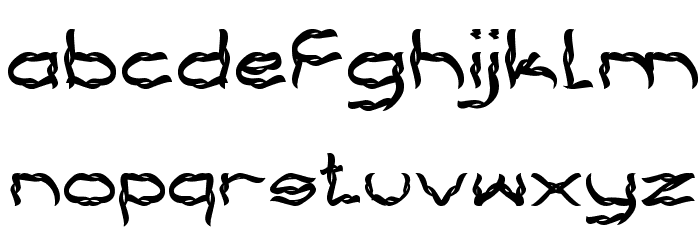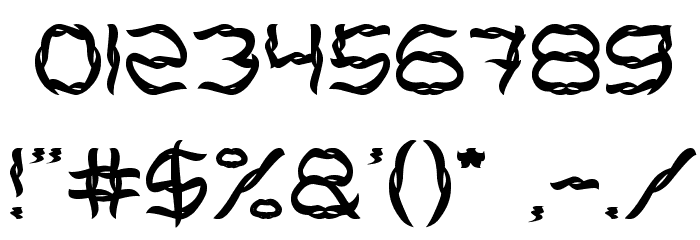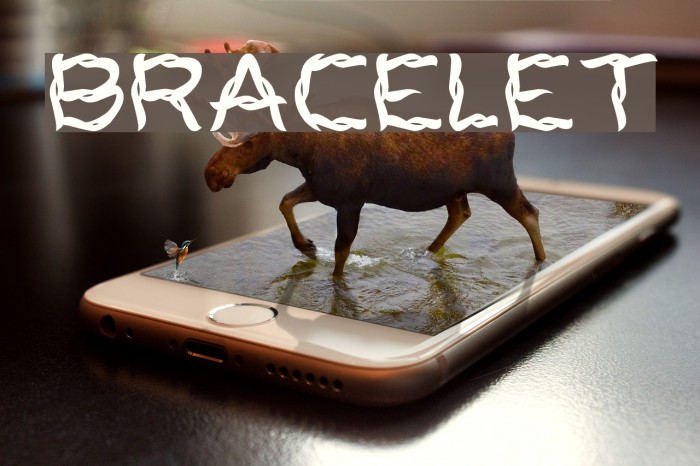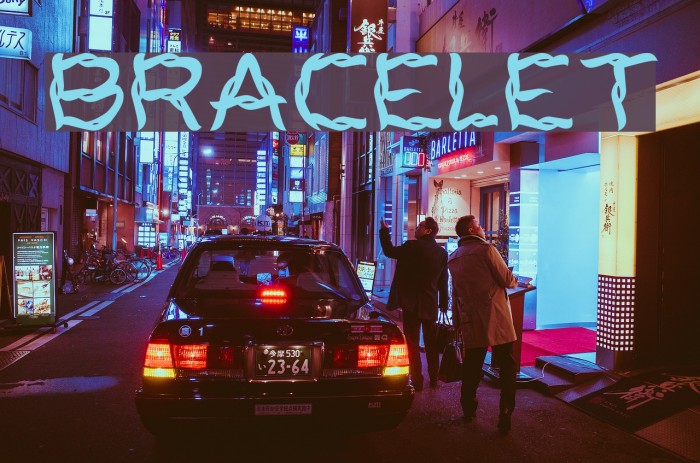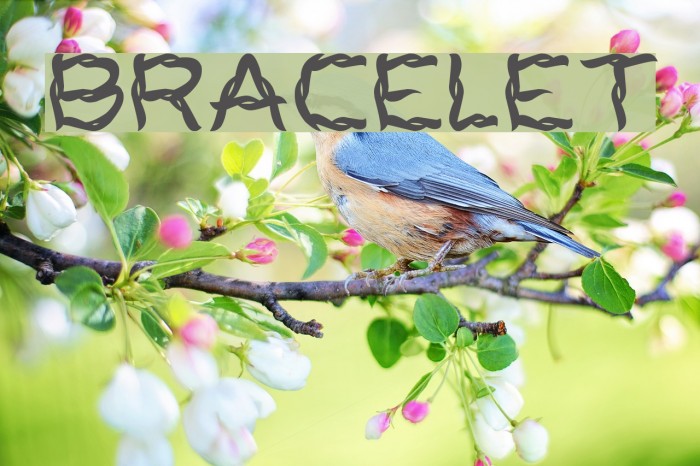
BRACELET Font
This font features a unique, decorative style with a twisted, vine-like appearance. Each character is crafted to resemble intertwined branches or ropes, giving it an organic and slightly chaotic look. The uppercase and lowercase letters maintain a consistent theme, with the uppercase being slightly more pronounced. Numbers and special characters follow the same intricate design, ensuring uniformity across all elements. The font's artistic flair makes it stand out, ideal for creative and unconventional projects.
A decorative, vine-like font with an organic, intertwined design.
- Proposed Projects: Ideal for artistic projects, event posters, album covers, or any design requiring a unique, nature-inspired aesthetic.
- Use Case: Logos, Posters, Creative Titles